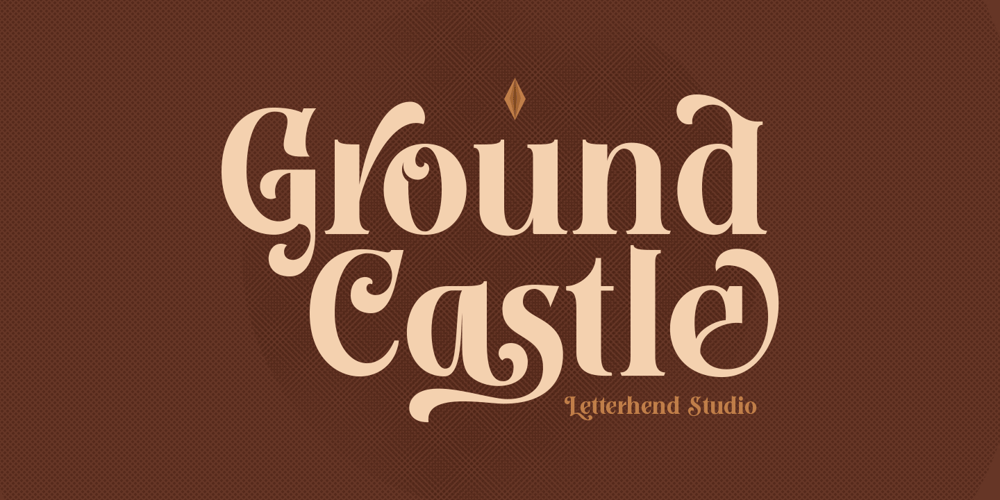
Ground Castle Font Family was designed by Hendry Juanda and published by Letterhend. Ground Castle contains 1 styles and family package options. Introducing, Ground Castle – A Modern high contrast serif font with swashes. The stylistic alternates and ligatures make this font event more unique and stands from the crowd. This font perfectly made to be applied especially in logo, and the other various formal forms such as invitations, labels, logos, magazines, books, greeting / wedding cards, packaging, fashion, make up, stationery, novels, labels or any type of advertising purpose.Features : uppercase & lowercase numbers and punctuation multilingual alternates, swashes & ligatures PUA encoded We highly recommend using a program that supports OpenType features and Glyphs panels like many of Adobe apps and Corel Draw, so you can see and access all Glyph variations.